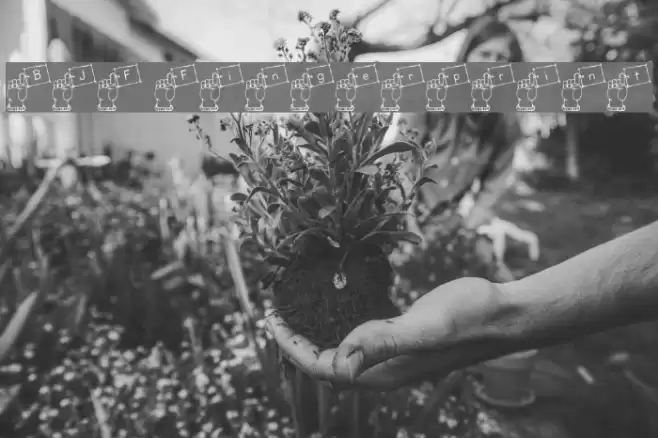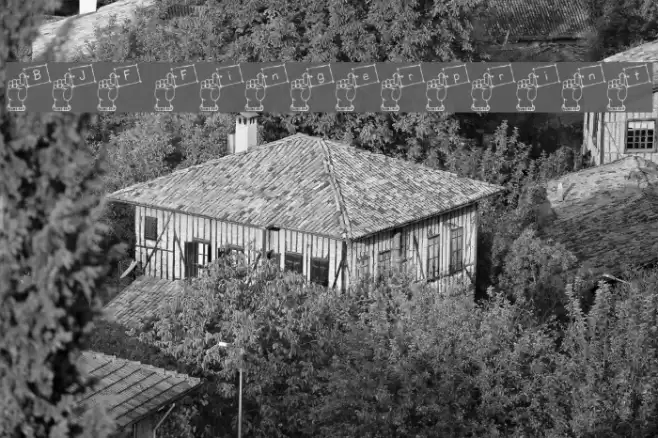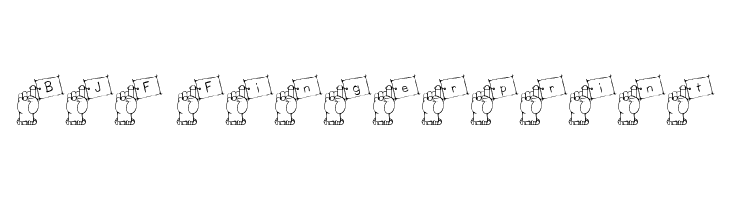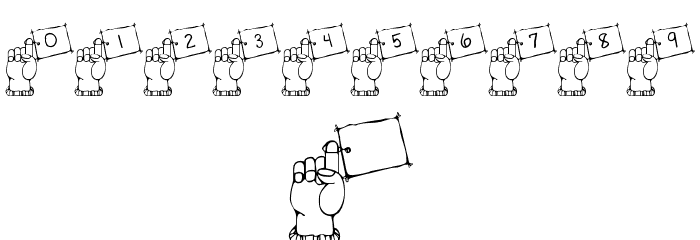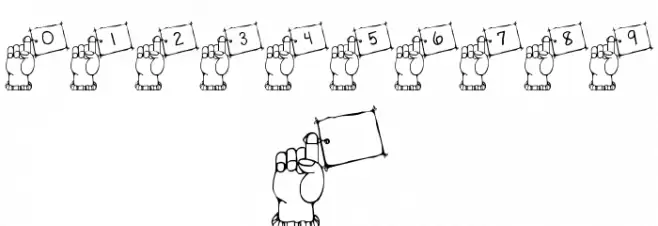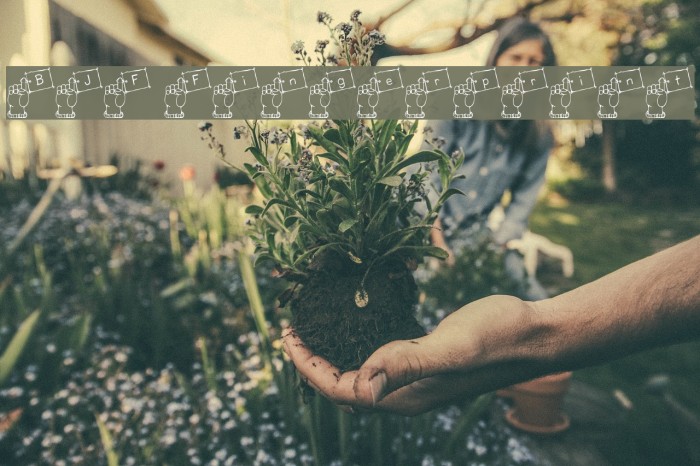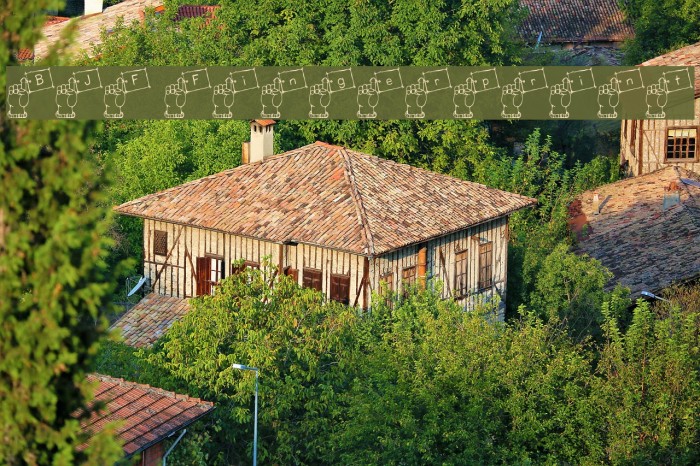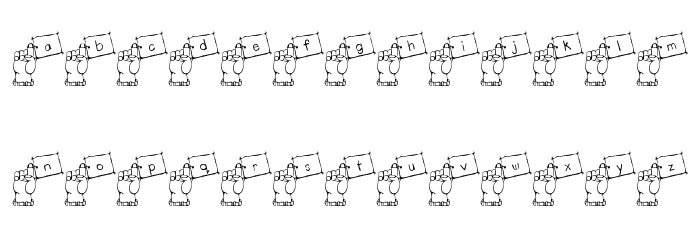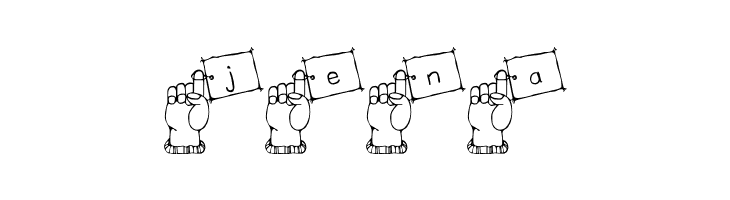
BJF Fingerprint Font
BJF Fingerprint Description
This font features a unique and playful design where each character is formed by a hand holding a card with the letter or number on it. The hand is detailed with visible fingers and a thumb, giving a three-dimensional effect. The characters are bold and easily recognizable, with a consistent style across uppercase, lowercase, and numerals. The special characters are also creatively integrated into the hand motif, maintaining the overall theme. This font stands out for its novelty and artistic approach, making it suitable for creative projects that require a distinctive and eye-catching typeface.
A playful font with characters held by a hand, offering a unique and artistic style from Uncategorized fonts.
- Proposed Projects: Ideal for children's books, playful branding, creative posters, and educational materials.